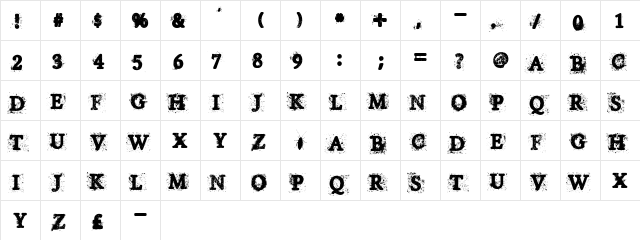
House of Horror Regular
| Foundry | Fabien Delage - The Wondermaker |
| Designer | Fabien Delage - The Wondermaker |
Design Context for House of Horror Typeface
House of Horror carries an unsettling edge — its distorted letterforms are built to unsettle, perfectly suited to horror, Halloween, and dark creative work.
Perfect for anything that needs to unsettle — game titles, horror branding, and macabre invitations.
Font Pairing: Pair with a clean neutral sans-serif for body copy to let House of Horror's character lead without overwhelming the composition.
Pro Tip: Use House of Horror at larger display sizes for maximum impact. Consider generous tracking to let the disturbing character of each letterform breathe.